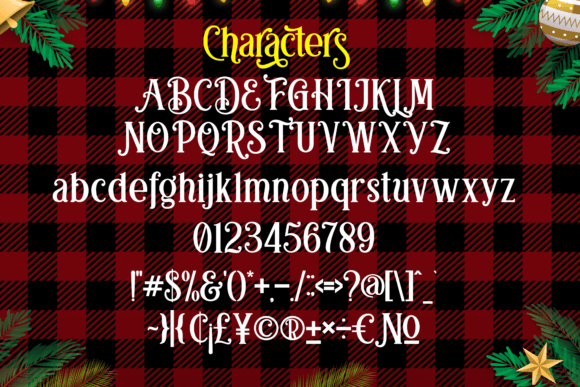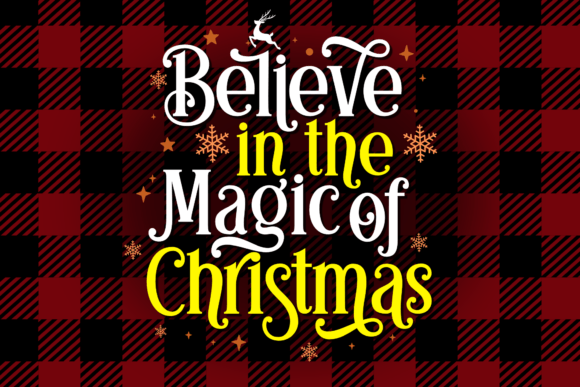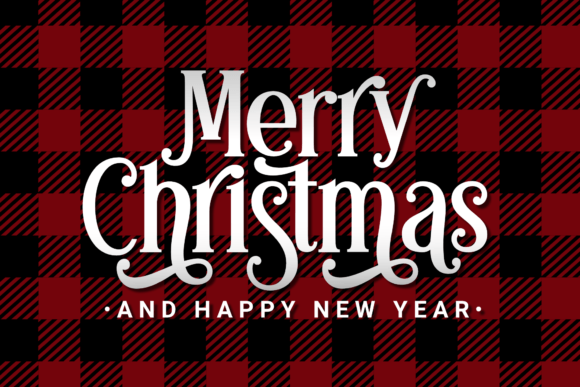
Chasing Christmas Font
Chasing Christmas is a festive and playful serif font. Add it confidently to your projects, and you will love the results.This font is PUA encoded which means you can access all of the glyphs and swashes with ease!